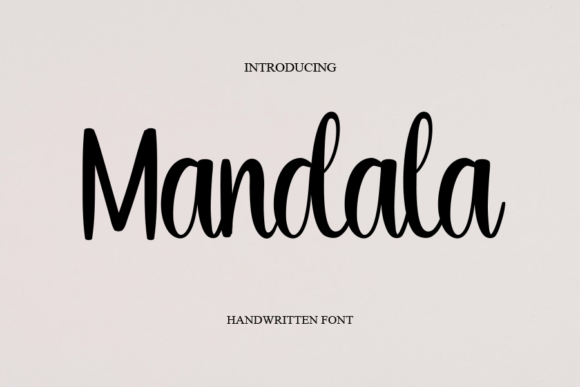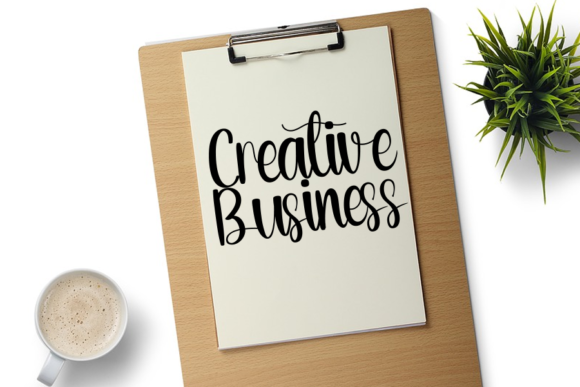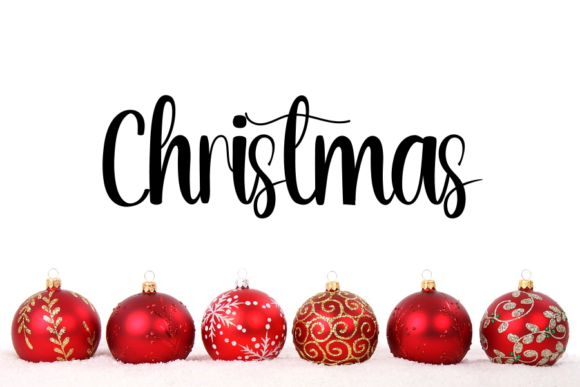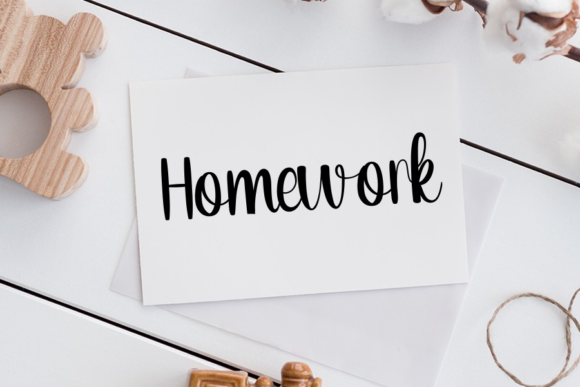
Mandala Font: Elegant Handwritten Script for Branding & DIY Projects
About the Mandala Font
Make a bold statement with Mandala Font, a powerful and memorable font. Mandala is a lovely and timeless handwritten font. It is the best choice for creating eye catching logos, branding and quotes. Every letter has a unique and beautiful touch, which will make your design come alive!
Mandala’s elegant, handwritten style shines in logos, branding materials, and short, impactful quotes. It’s ideal for projects requiring a touch of handcrafted charm, such as wedding invitations or boutique branding. However, its delicate nature makes it unsuitable for body text or UI elements where readability is paramount. Avoid using it for large blocks of text.
Pair Mandala with a clean sans-serif like Lato for a modern contrast, or a classic serif such as Garamond for a more traditional feel. A geometric sans-serif, such as Futura, would provide a strong, contemporary counterpoint. These pairings balance Mandala’s organic forms with crisp, legible typography.
Mandala projects a sophisticated and slightly whimsical personality, best suited for brands aiming for a refined yet approachable image. Its hand-drawn quality adds a personal touch without sacrificing professionalism.
Mandala Font Usage Examples
Mandala Font Example